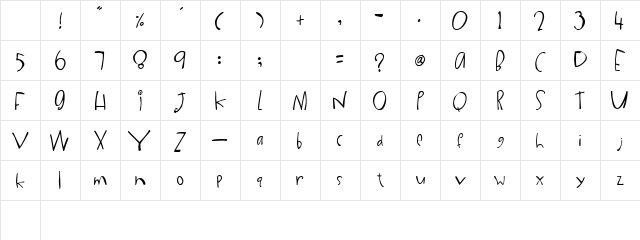
2Peas DW Ups and Downs Regular
Design Context for 2Peas DW Ups and Downs
2Peas DW Ups and Downs is a composed and adaptable typeface that performs quietly and consistently across a wide range of design contexts.